Who would've thought that the chunky, playful fonts we used to see on kids’ toys and stickers are making a big comeback? Yep — bubble fonts are officially trending again in 2025. But this time, they’re not just cute — they’re bolder, more refined, and surprisingly versatile.
Bubble fonts were once known for their thick, rounded shapes, full of fun energy — great for children’s events or comic-style graphics. But now, designers are bringing back that unique charm. Bubble fonts are fun, expressive, and definitely stand out. No wonder Gen Z-focused brands are using them for logos, packaging, and even social media content.
Worried that bubble fonts might look too childish? No worries. Modern designers are blending the fun, rounded style with more structured forms — creating what we call hybrid bubble fonts. Here at Burntilldead Studio, we have a few of those in our collection:
1. Blowpis
Blowpis is a playful and edgy display font that melts the ordinary. Inspired by dripping textures and bubbly shapes. It comes in 2 unique style: Regular and Solid. Regular style crafted with fun highlight effects to add depth and make your letters pop in a playful way. And Solid style, No highlights, just bold and chunky! Great for punchy headlines and loud visual statements. Blowpis includes cool alternates that turn your letters into bubble-like blobs, liquid drips, or even creepy horror vibes. Just mix and match! Best fot music & event posters, streetwear design, album covers, Y2K vibes oe even experimental layouts. Blowpis brings a fresh vibe to your design, perfect for those who love to stand out!
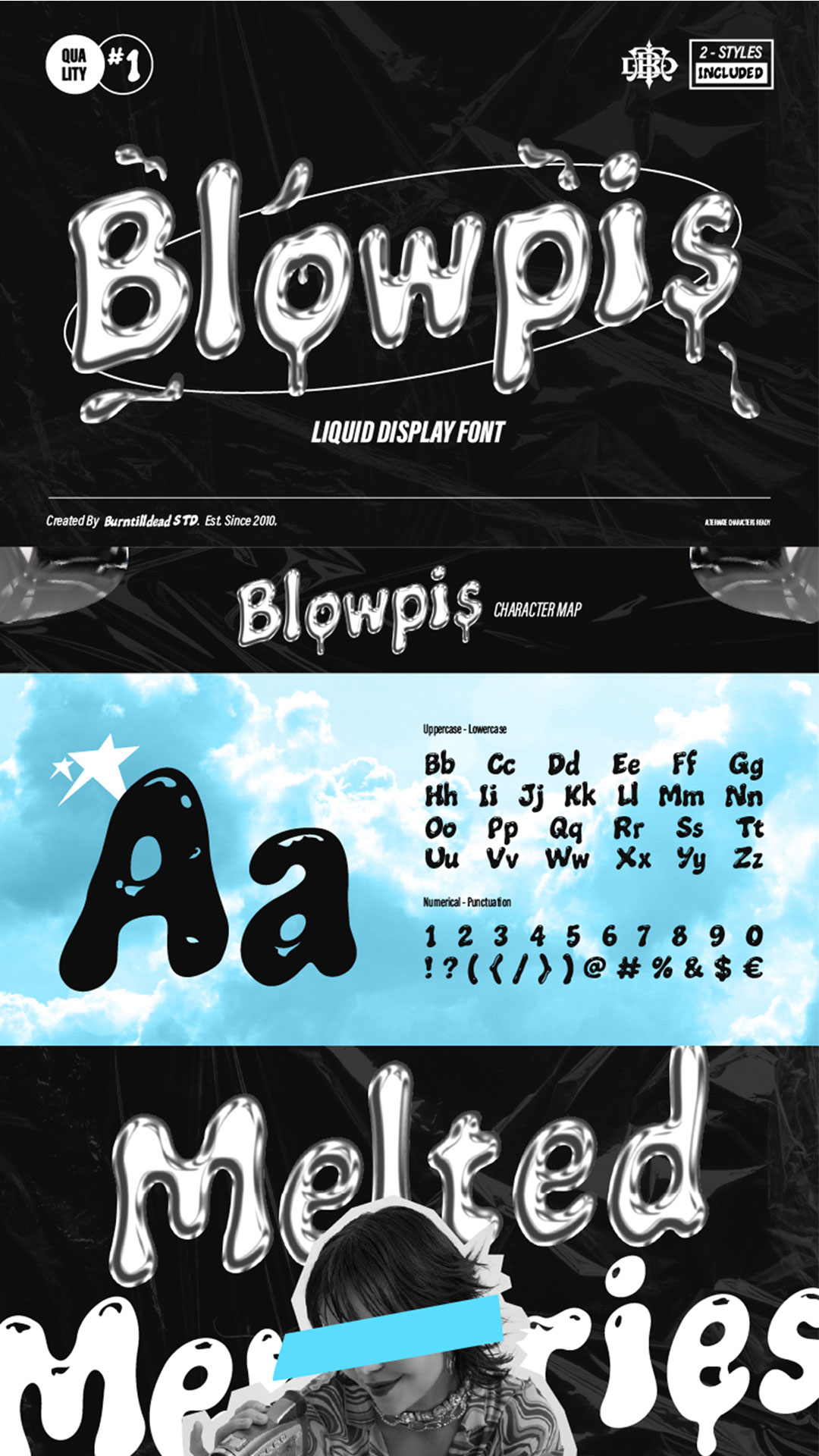
2. Luneis
Luneis, a hybrid typeface that combining the playful bubble graffiti and the simplicity of sans serif. This blends of this font creating a striking contrast between youthful and simplicity. Bubble graffiti evoking sense of energy and spontaneity. The san serif delivers clean lines and contemporary feel, emphasizing clarity and sophistication. Together, they celebrate the fusion of street art and design, also make your project stand out because of the visual creativity and textual communication. Ideal for fashion streetwear, merchandise, social media marketing, poster and many more.
3. Ronsbel
Ronsbel, our hybrid typeface that seamlessly combines the playful essence of bubble graffiti with the sleek sophistication of monoline sans serif. With the rounded forms of bubble graffiti font, it evoke a sense of fun, while the clean line add modern touch. this typeface embodies the spirit of urban creativity, making it perfect project that seek to blend whimsy with refinement. Ideal for anything from street art to branding.
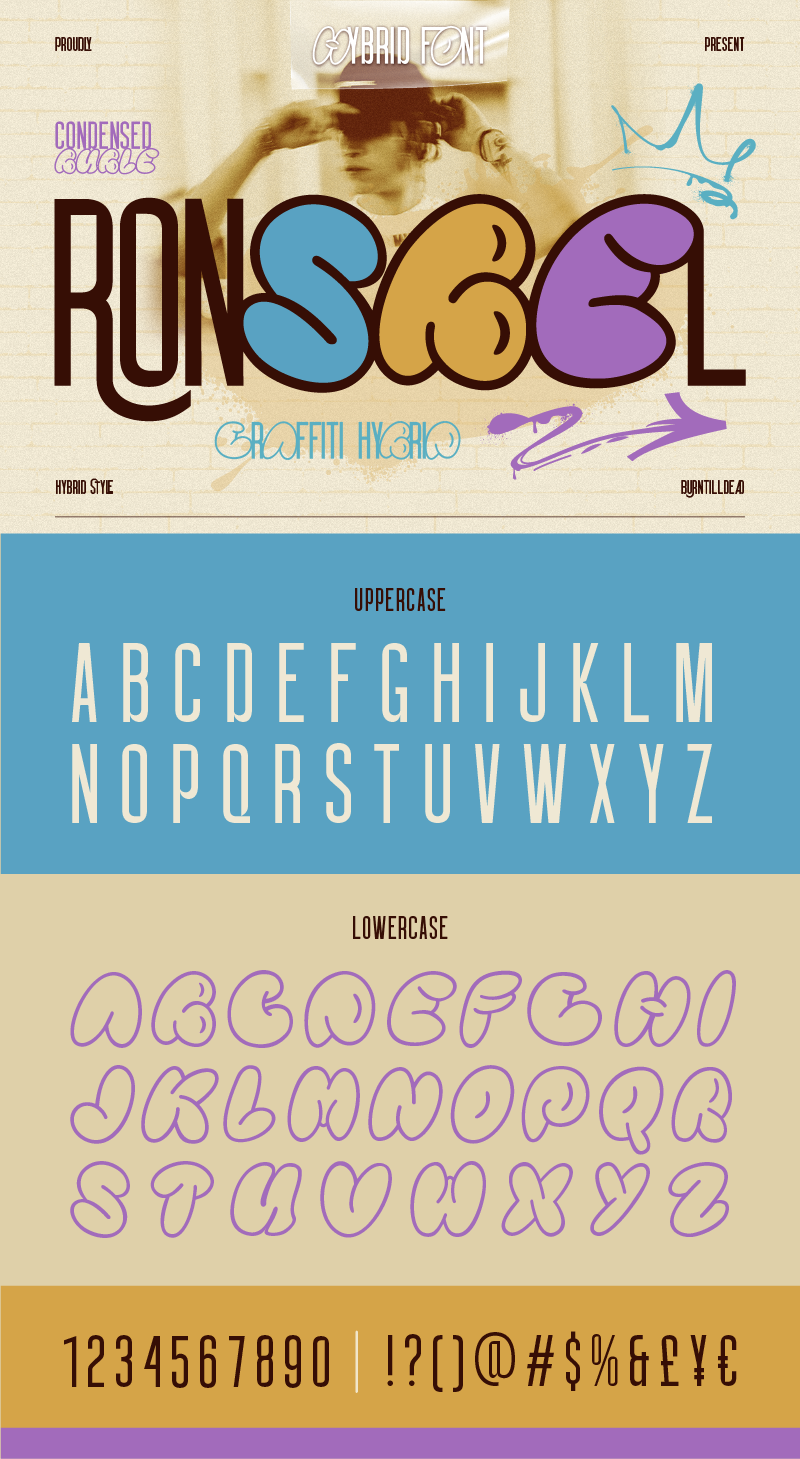
4. Tribel
Tribel, hybrid typeface of bubble and serif font. This unique combination brings together the playful, rounded forms of bubble with the structured, classic lines of serif typography. The result is a typeface that exudes both fun and sophistication, perfect for projects that aim to capture a modern, urban aesthetic. Whether you’re designing for streetwear brands, creative posters, or contemporary logos, this hybrid typeface offers versatility and a fresh, dynamic look.
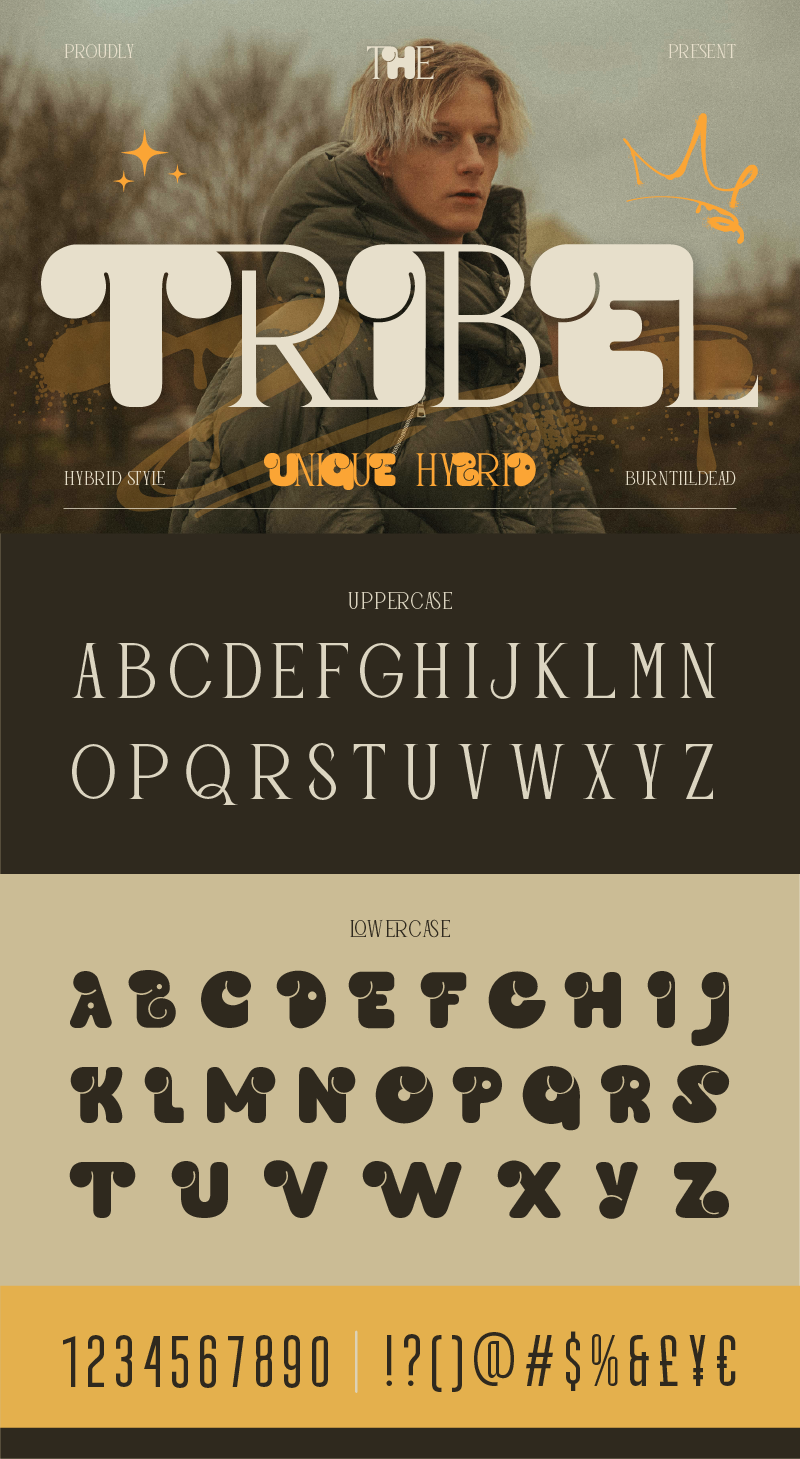
Bubble fonts in 2025 are not just a flashback — they’re evolving into expressive, modern design tools. Whether you're a designer or a brand owner, now’s the perfect time to explore their potential.